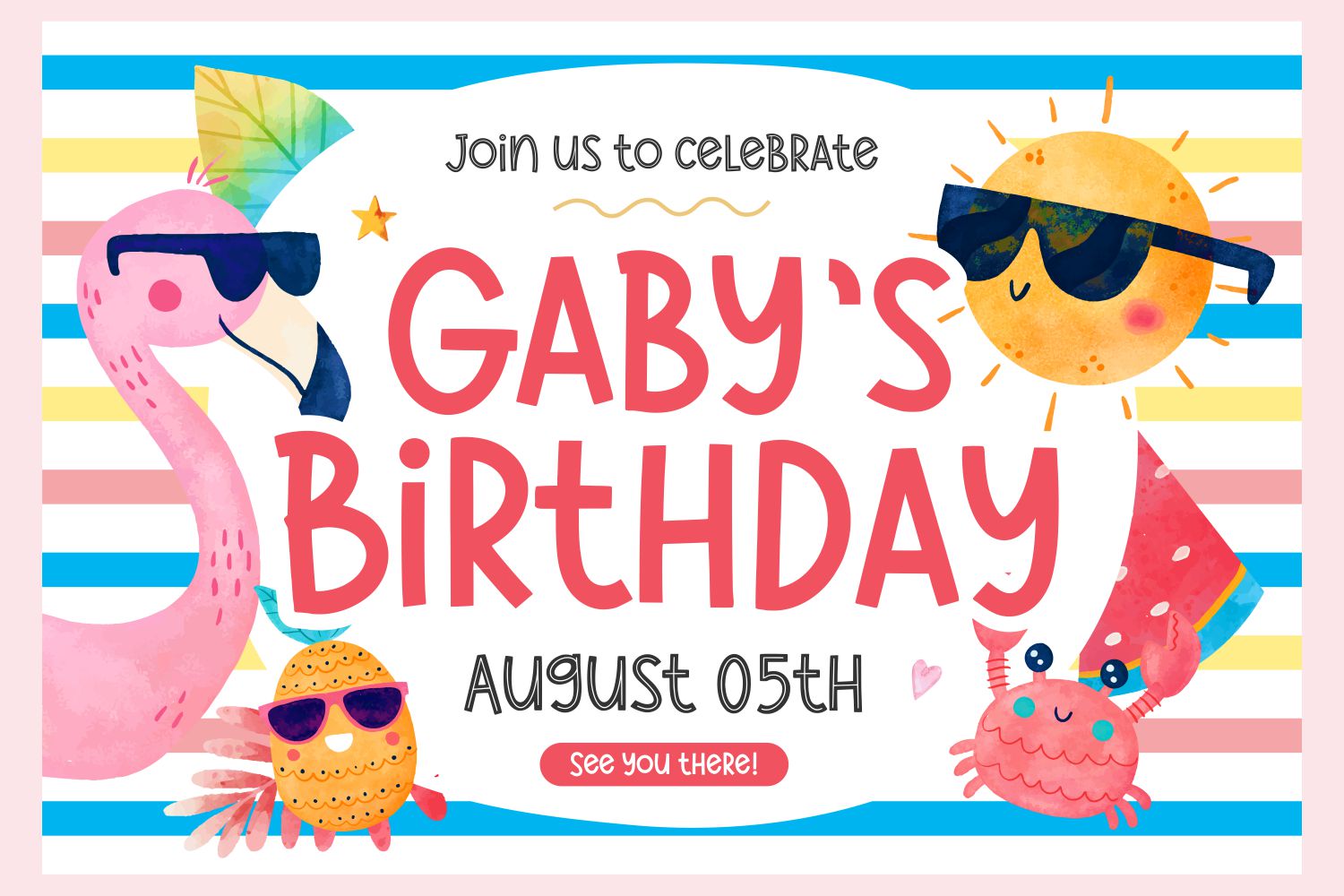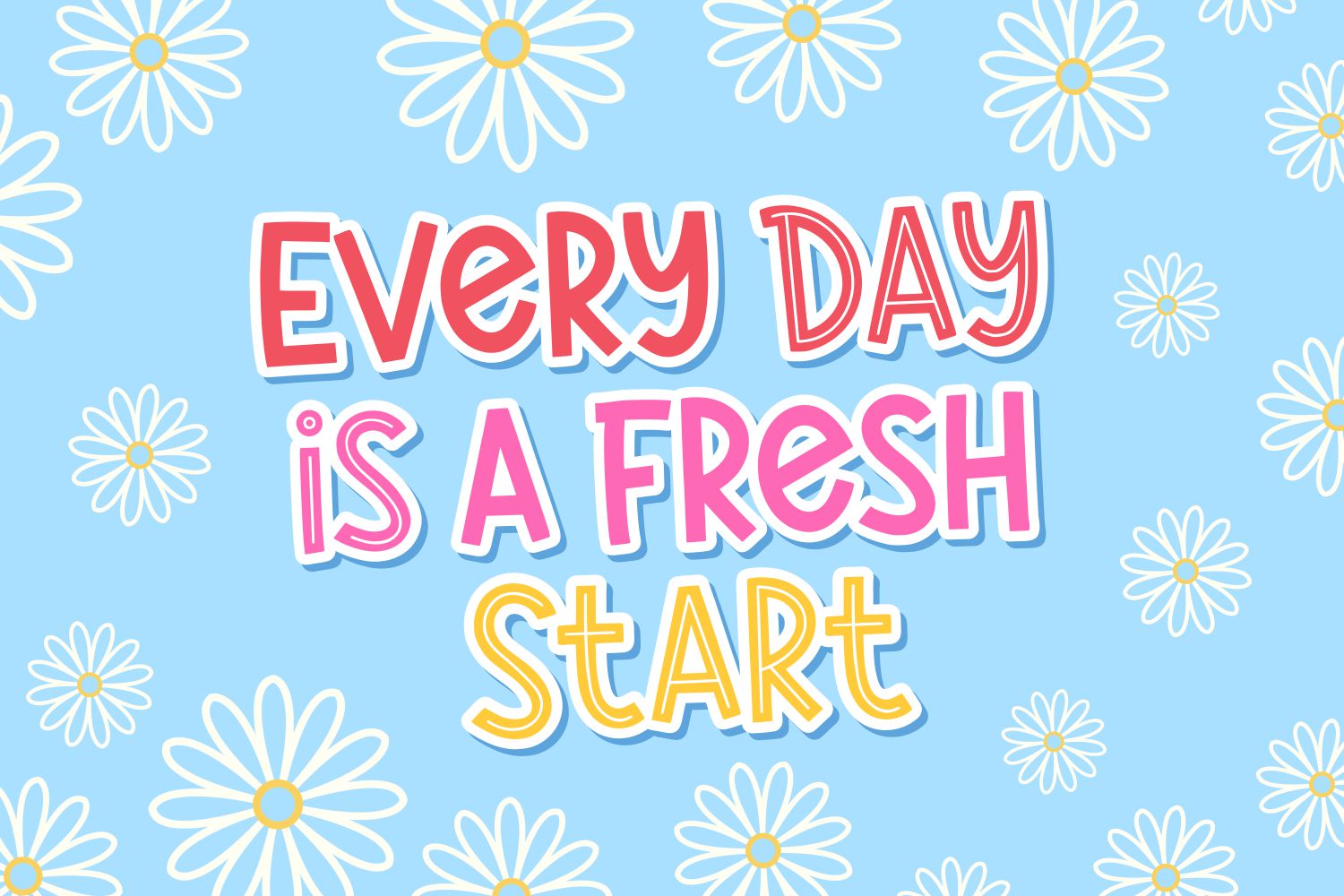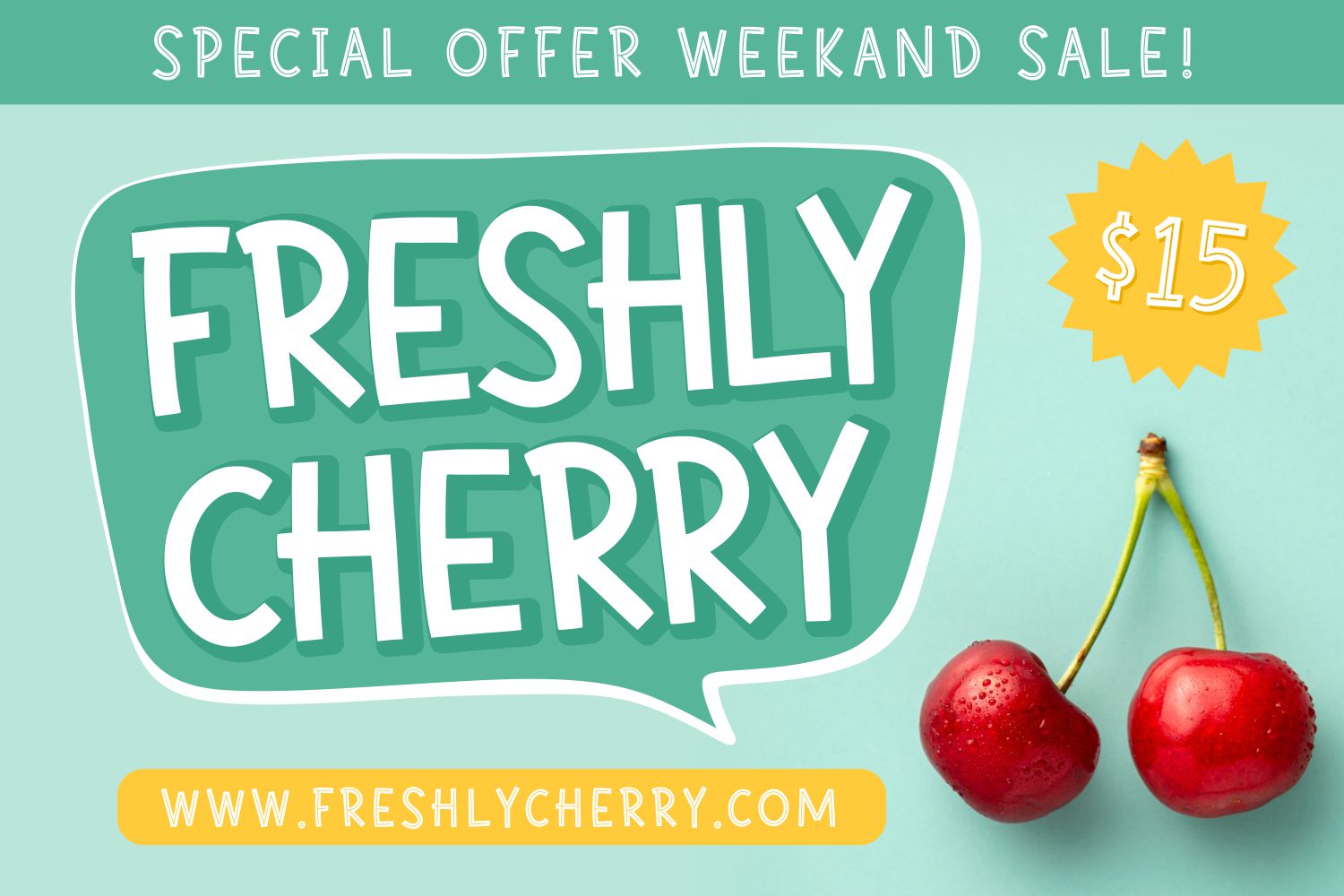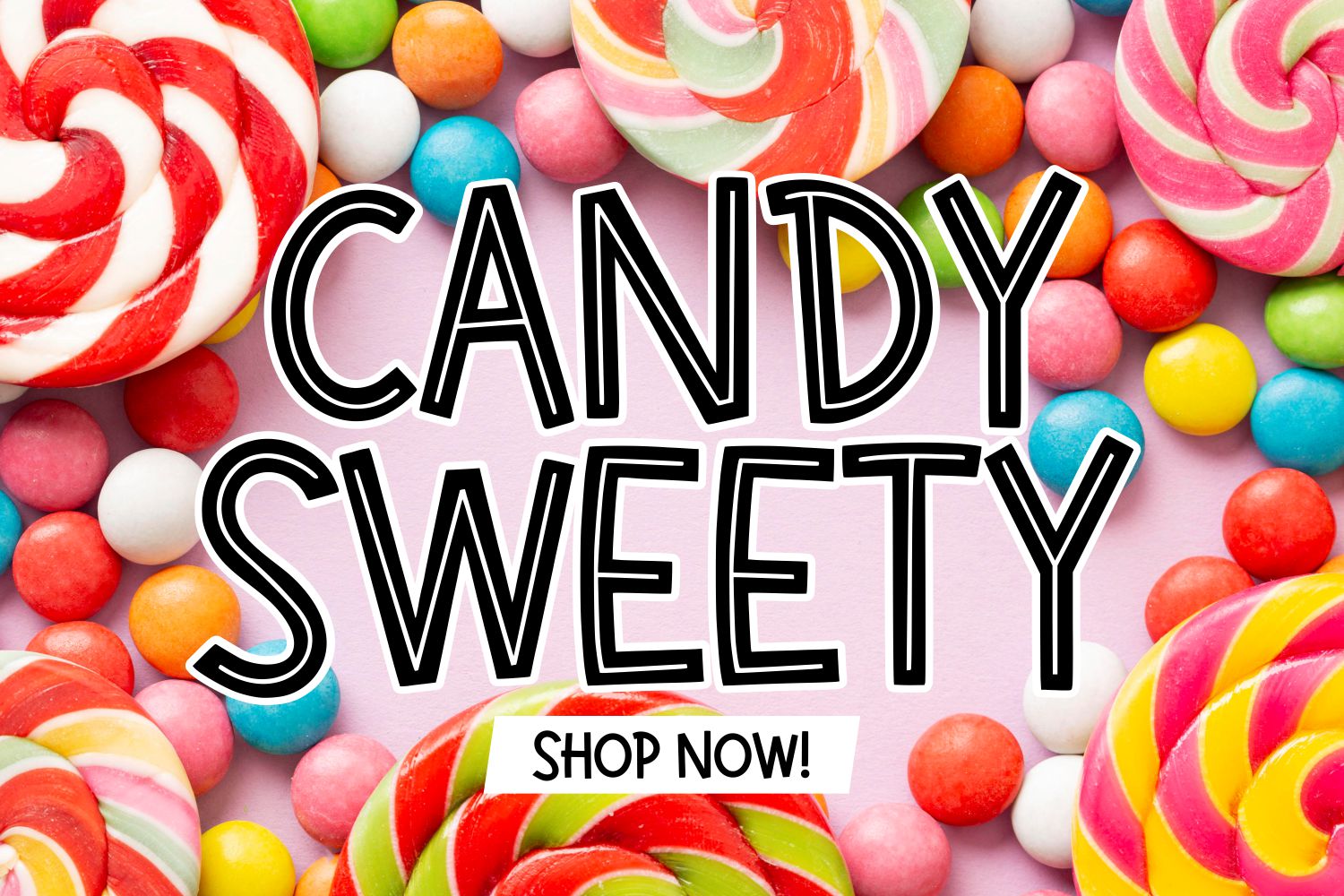
Mocha Cherry Display Font
This is a sweet and friendly display font. Its natural and unique style makes it incredibly fitting to a large pool of designs. The only limit is your imagination!